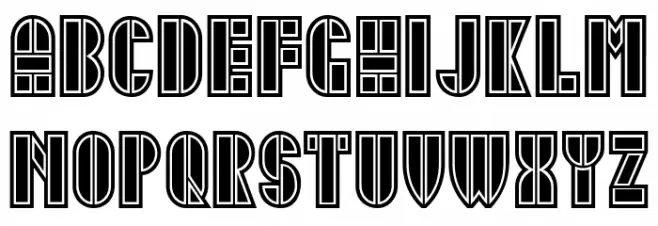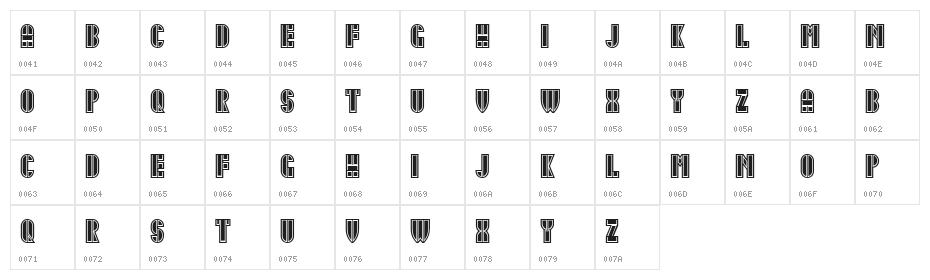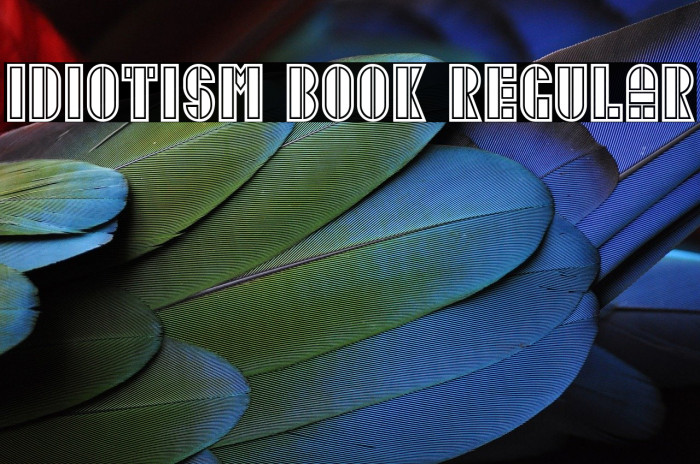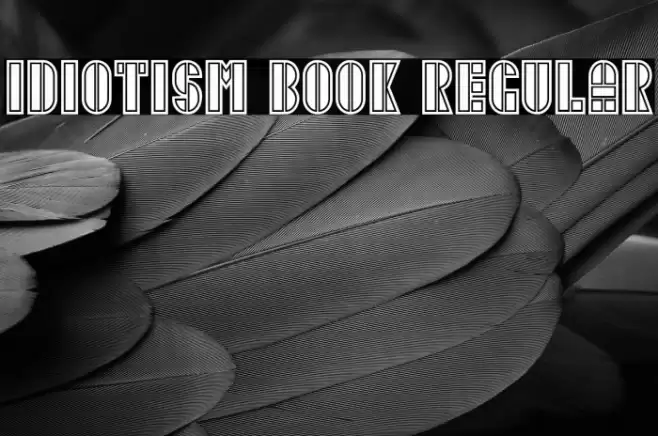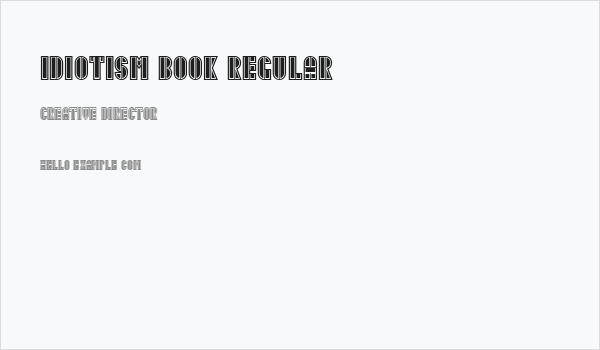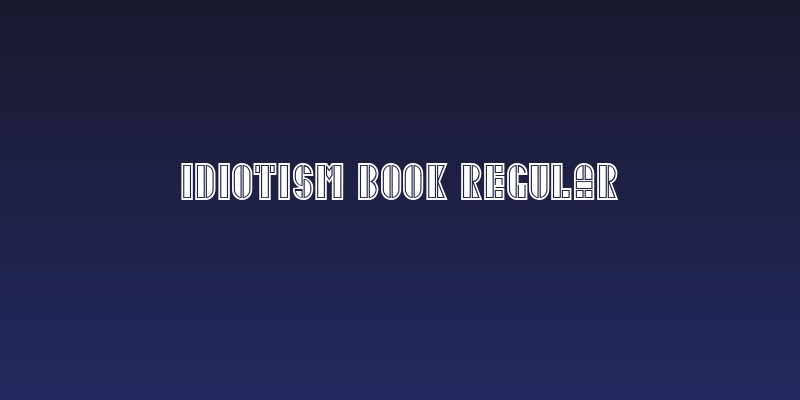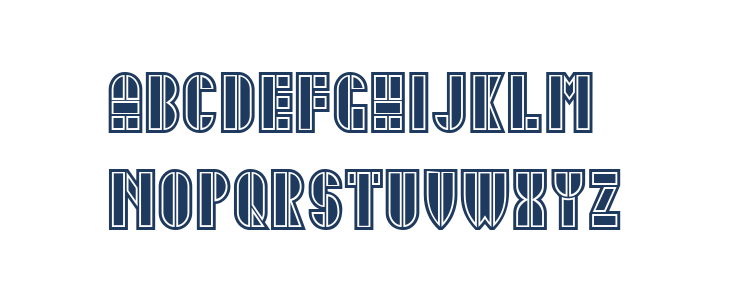
Idiotism Book Regular Font
Idiotism Book Regular Description
This font features a bold, geometric design with a strong emphasis on symmetry and structure. Each character is crafted with a double-line outline, creating a striking visual effect that enhances its decorative appeal. The uppercase letters are particularly prominent, with sharp angles and a consistent width that give them a modern, architectural feel. The font's unique style is further accentuated by the use of negative space, which adds depth and dimension to the overall appearance. This font is ideal for projects that require a bold statement or a contemporary edge.
Proposed ProjectsIdeal for branding, poster design, album covers, and any project requiring a bold, modern statement.